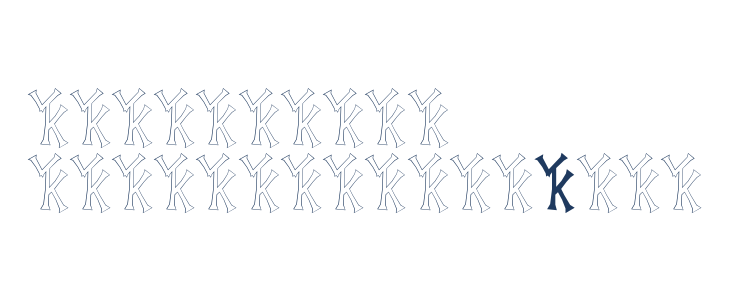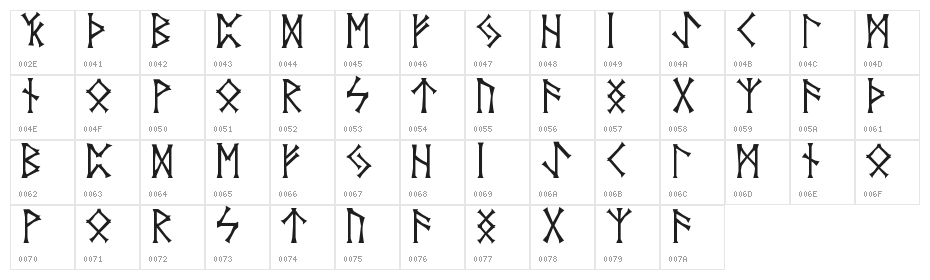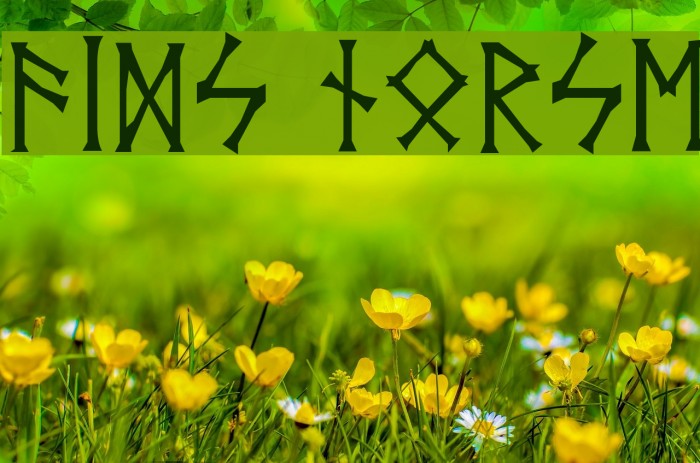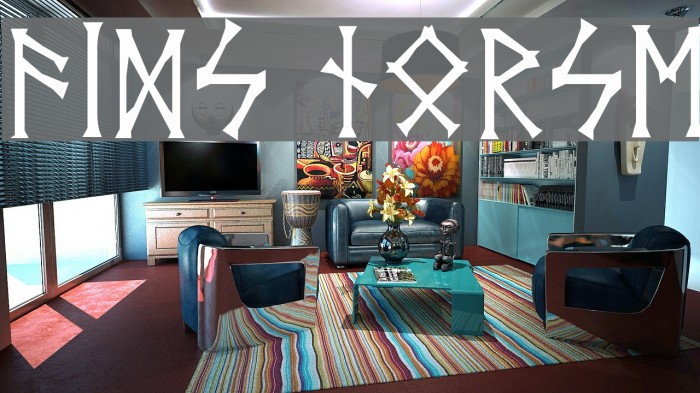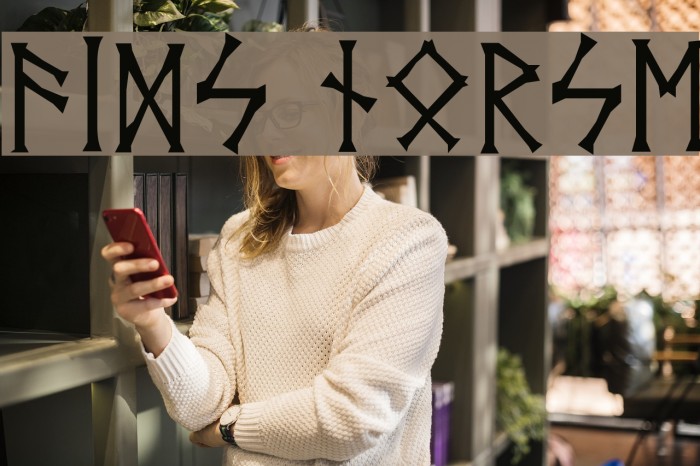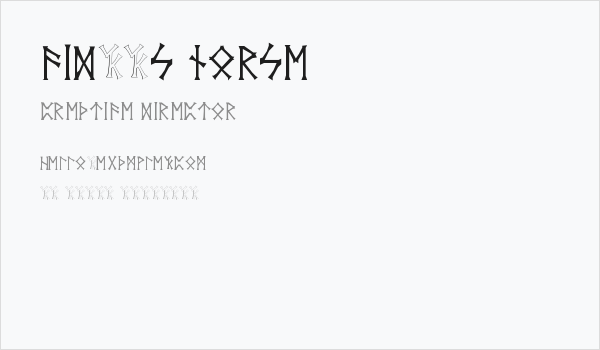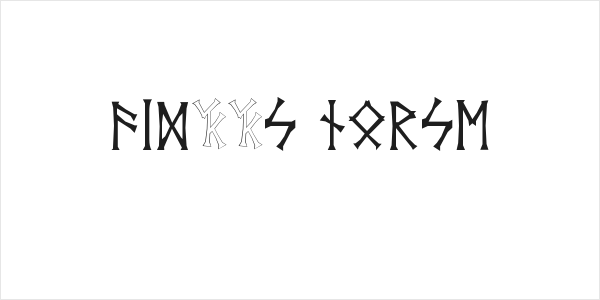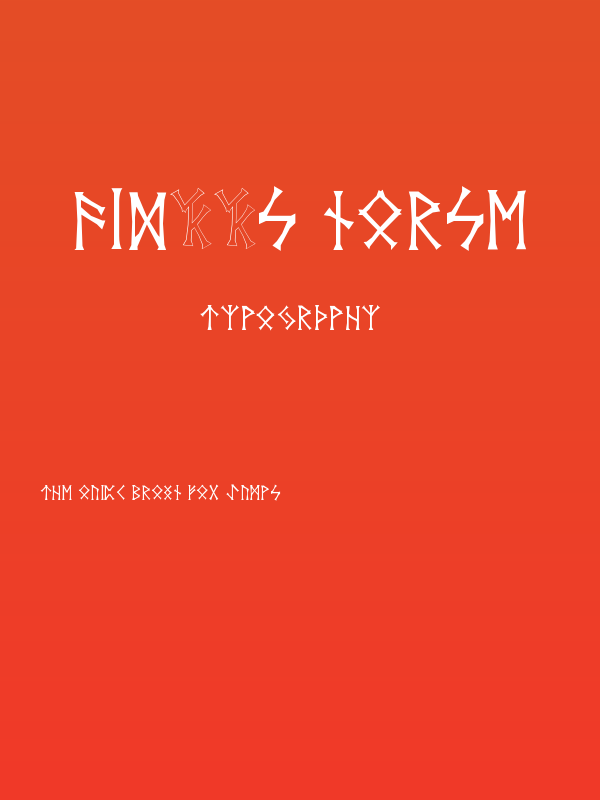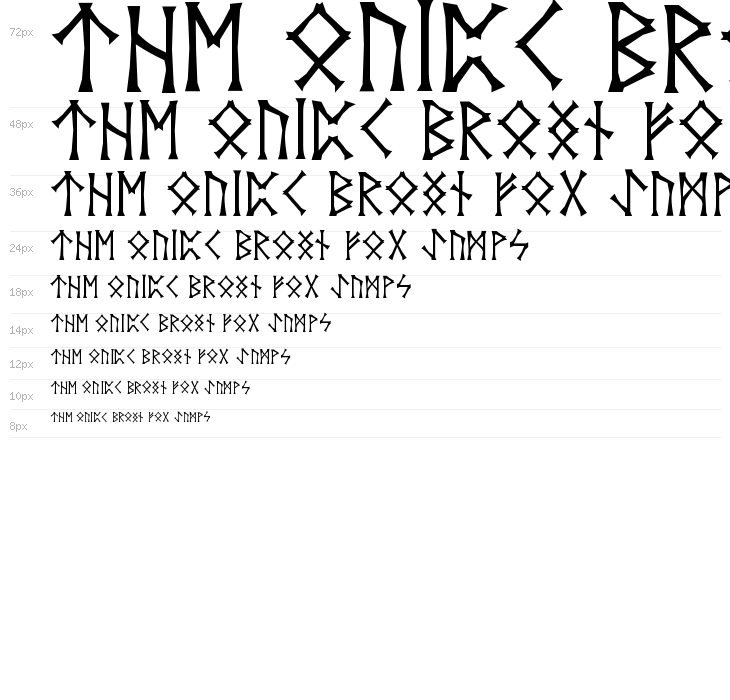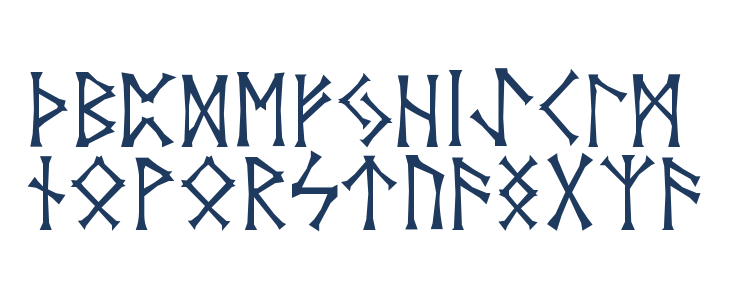
Vid's Norse Font
Vid's Norse Description
This font features a distinct Norse-inspired design, characterized by angular and geometric shapes reminiscent of ancient runes. The letters are bold and striking, with sharp edges and a strong presence. The uppercase and lowercase letters maintain a consistent style, emphasizing vertical and diagonal lines. The numbers and special characters follow the same aesthetic, ensuring a cohesive look across all elements. This font evokes a sense of mystery and antiquity, making it ideal for projects that require a historical or mythical touch.
| Proposed Projects | Ideal for fantasy book covers, historical documentaries, themed event posters, and video game graphics. |